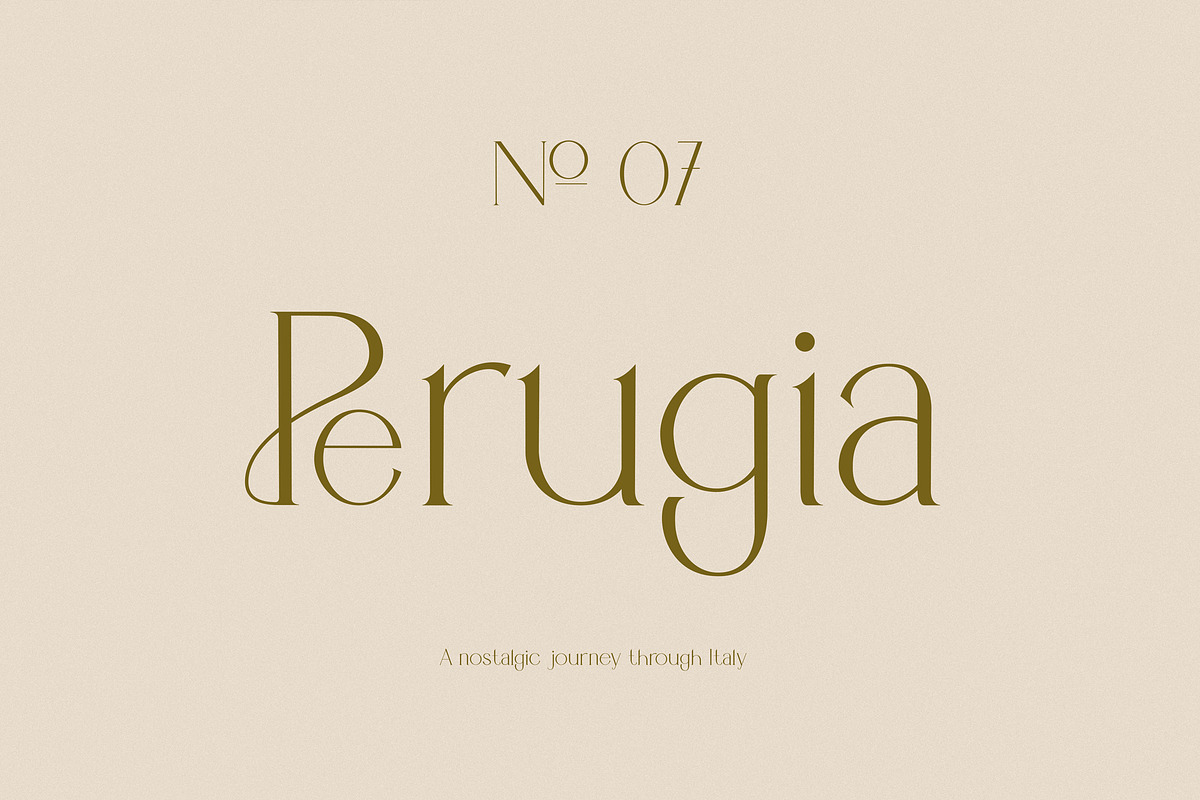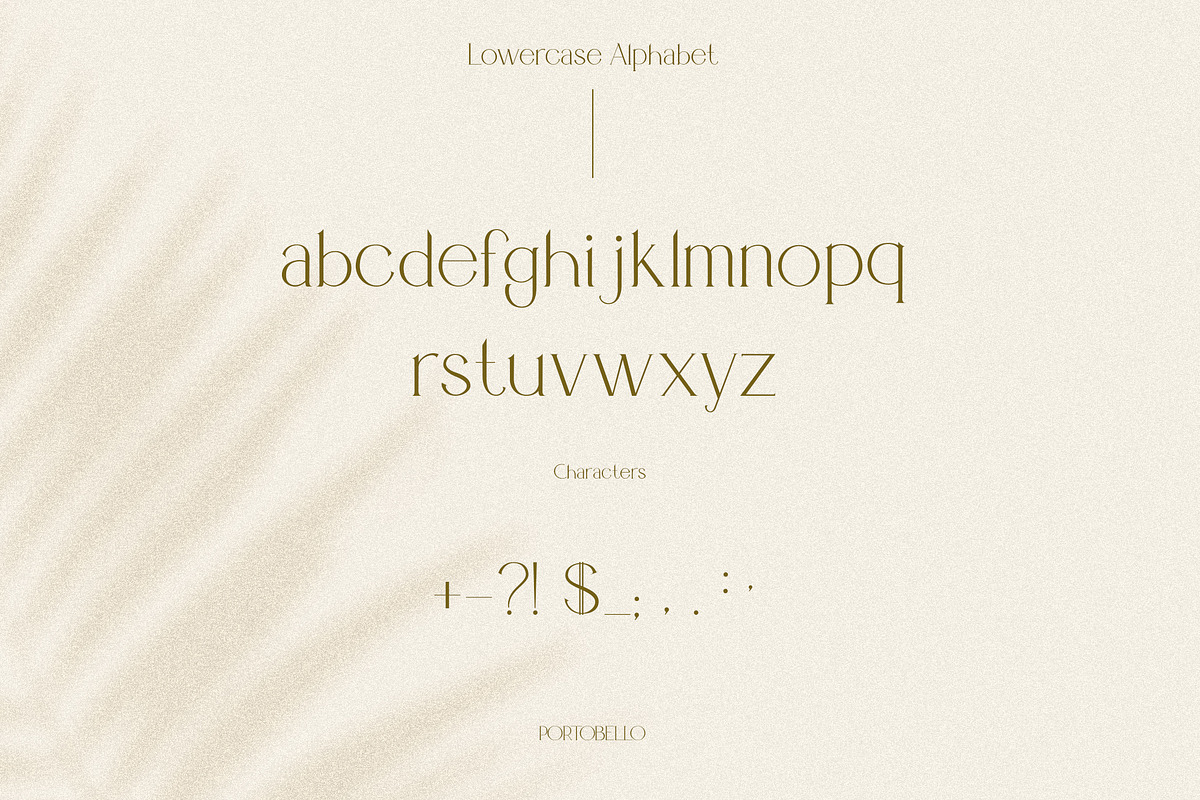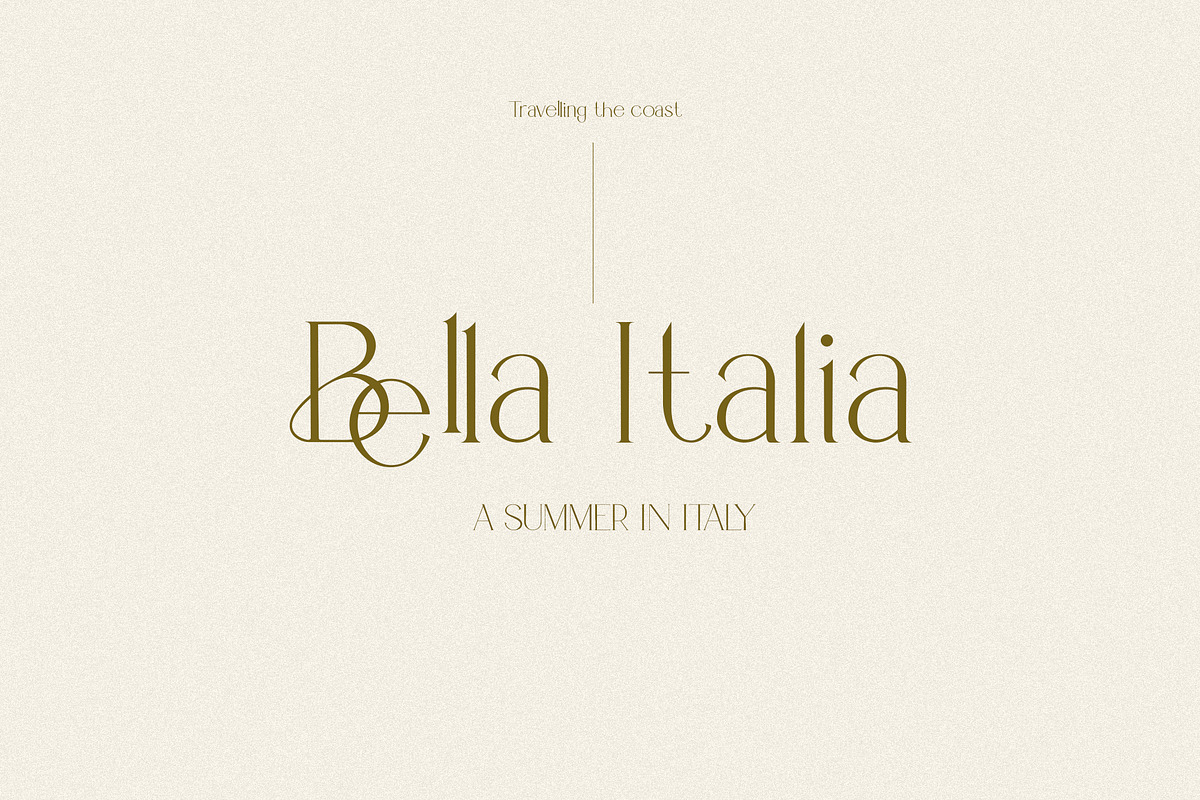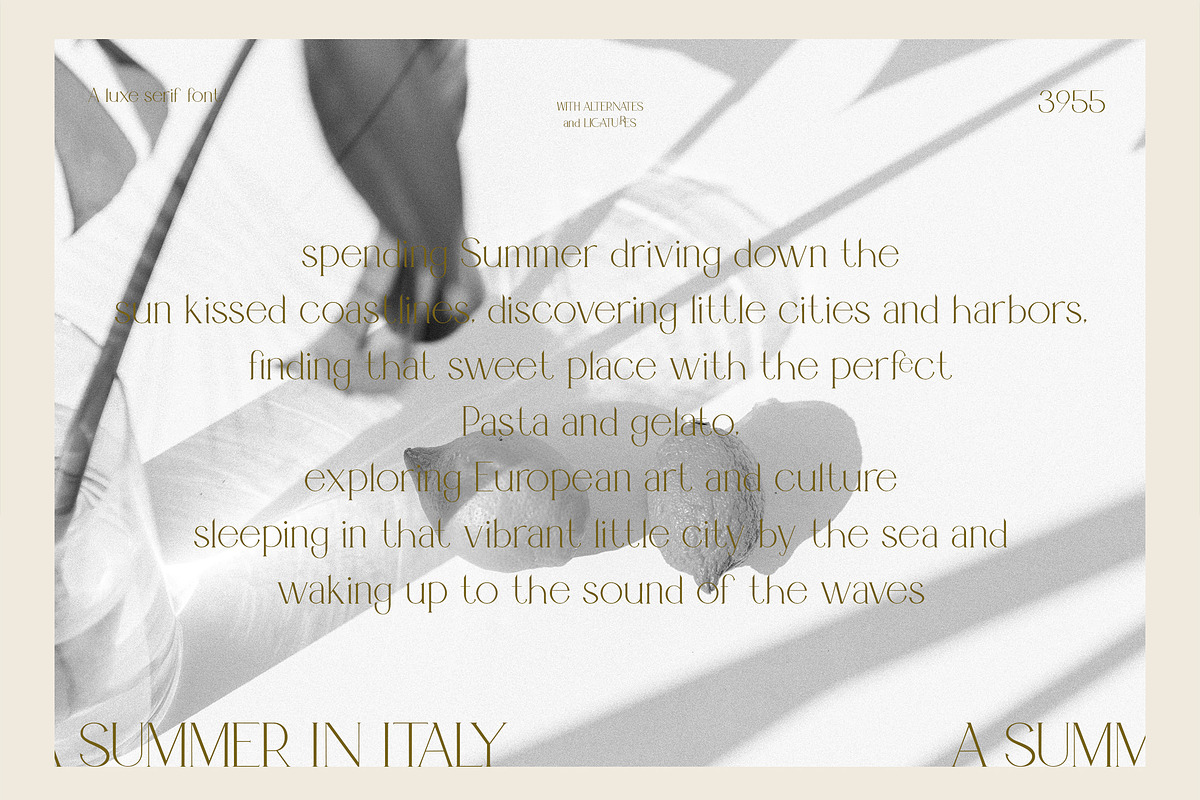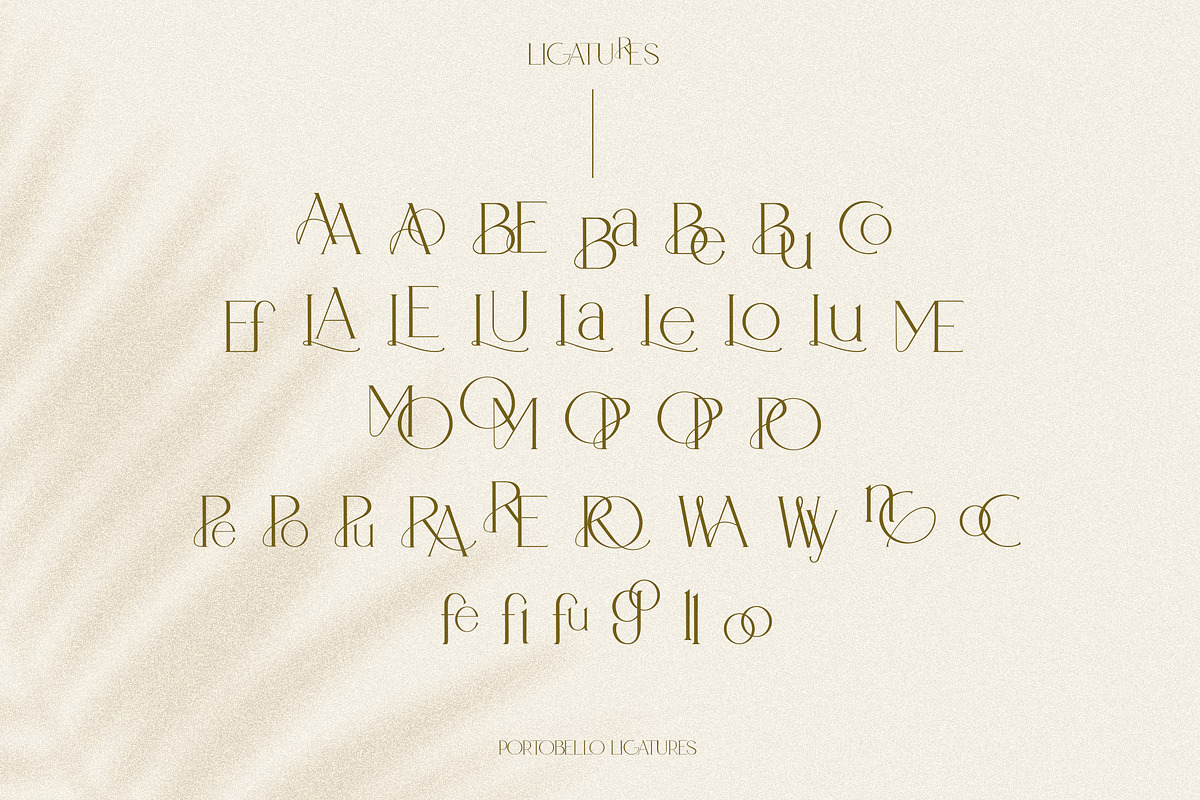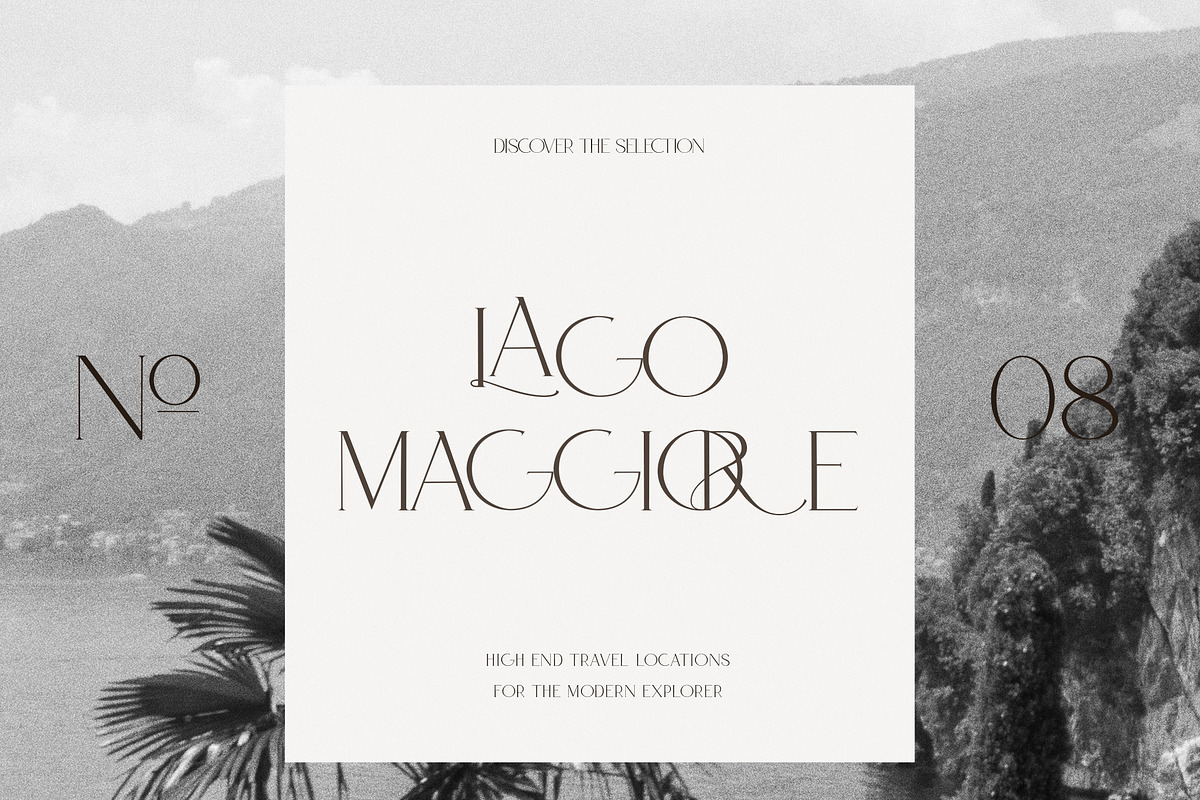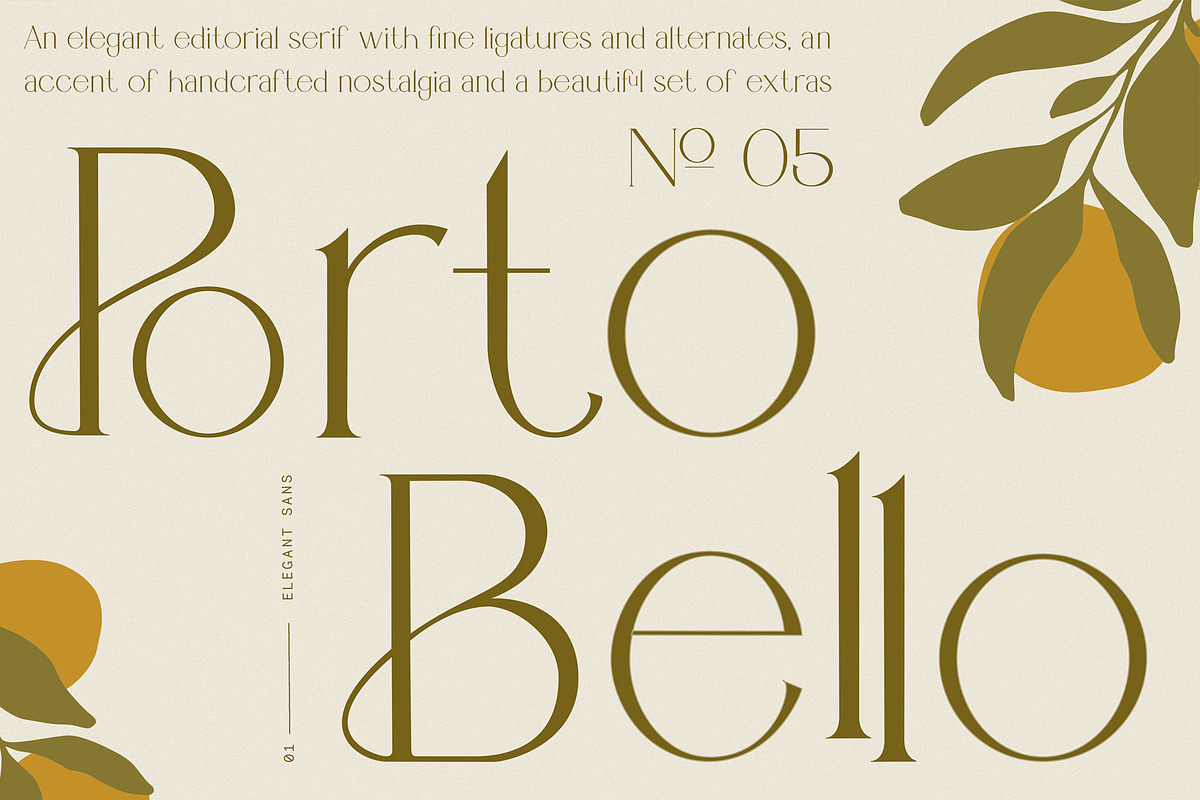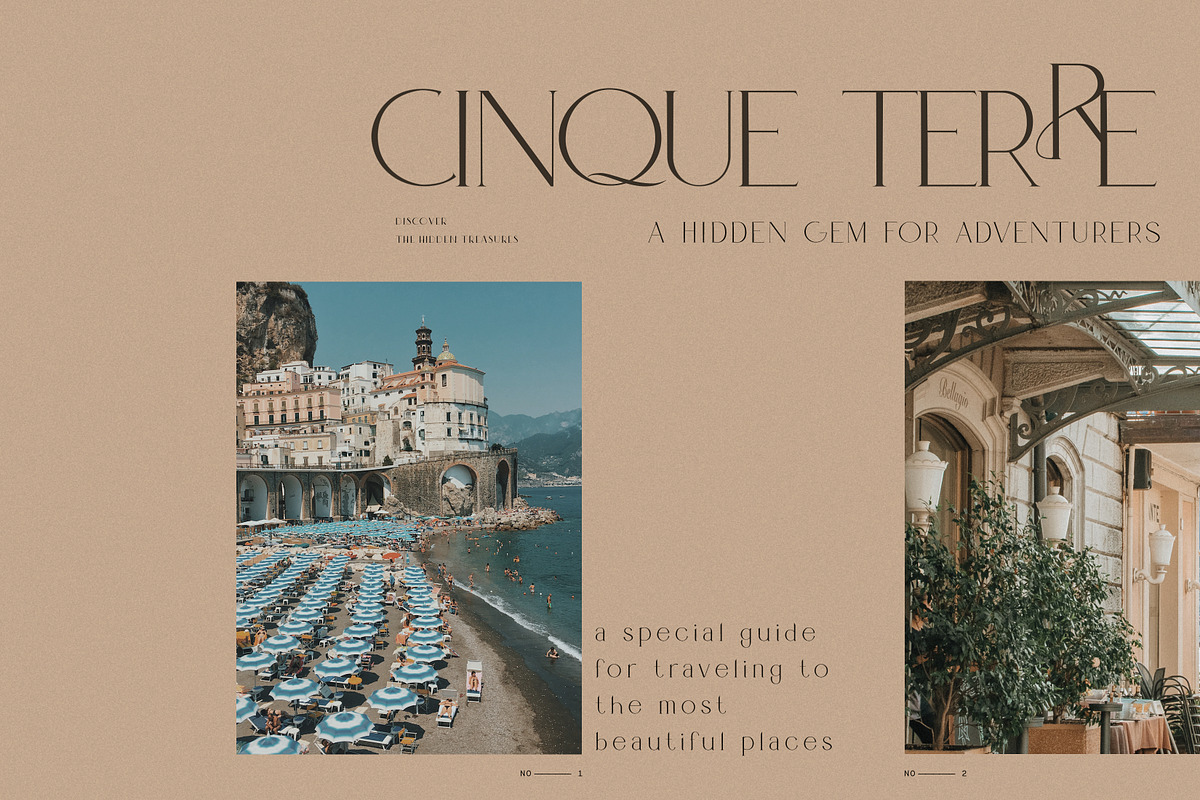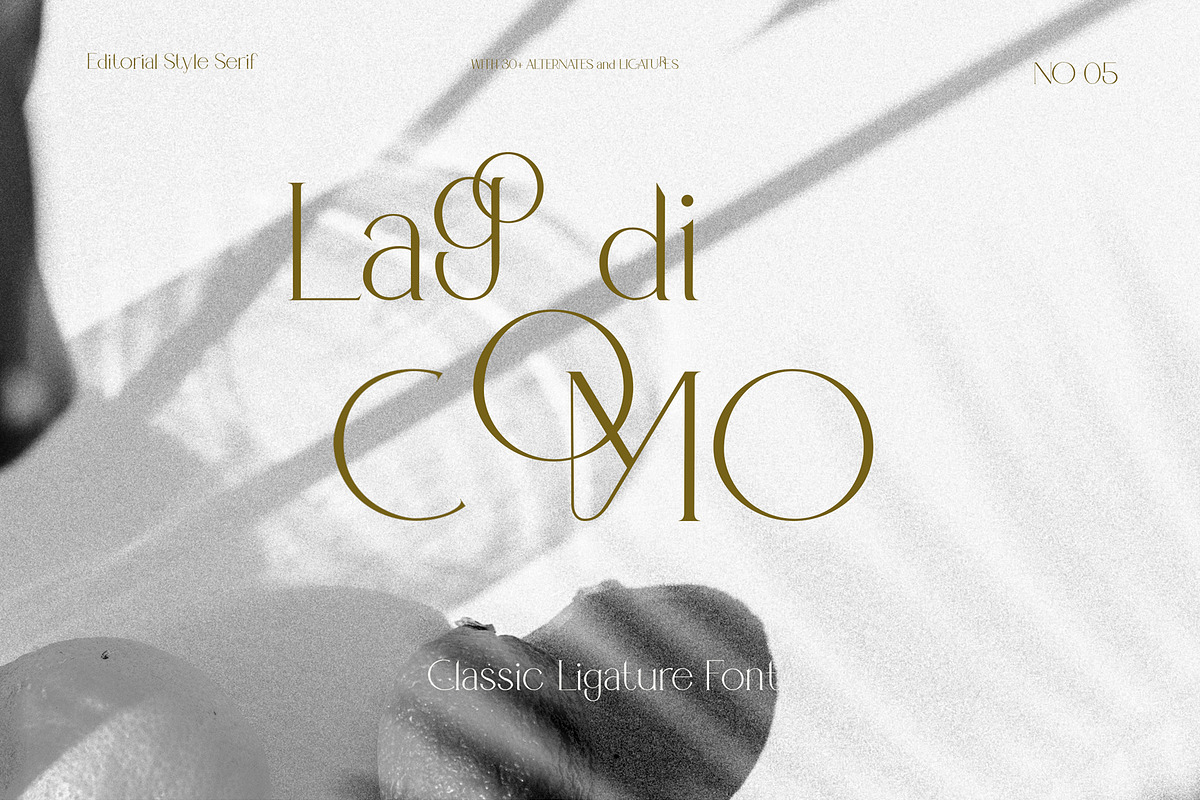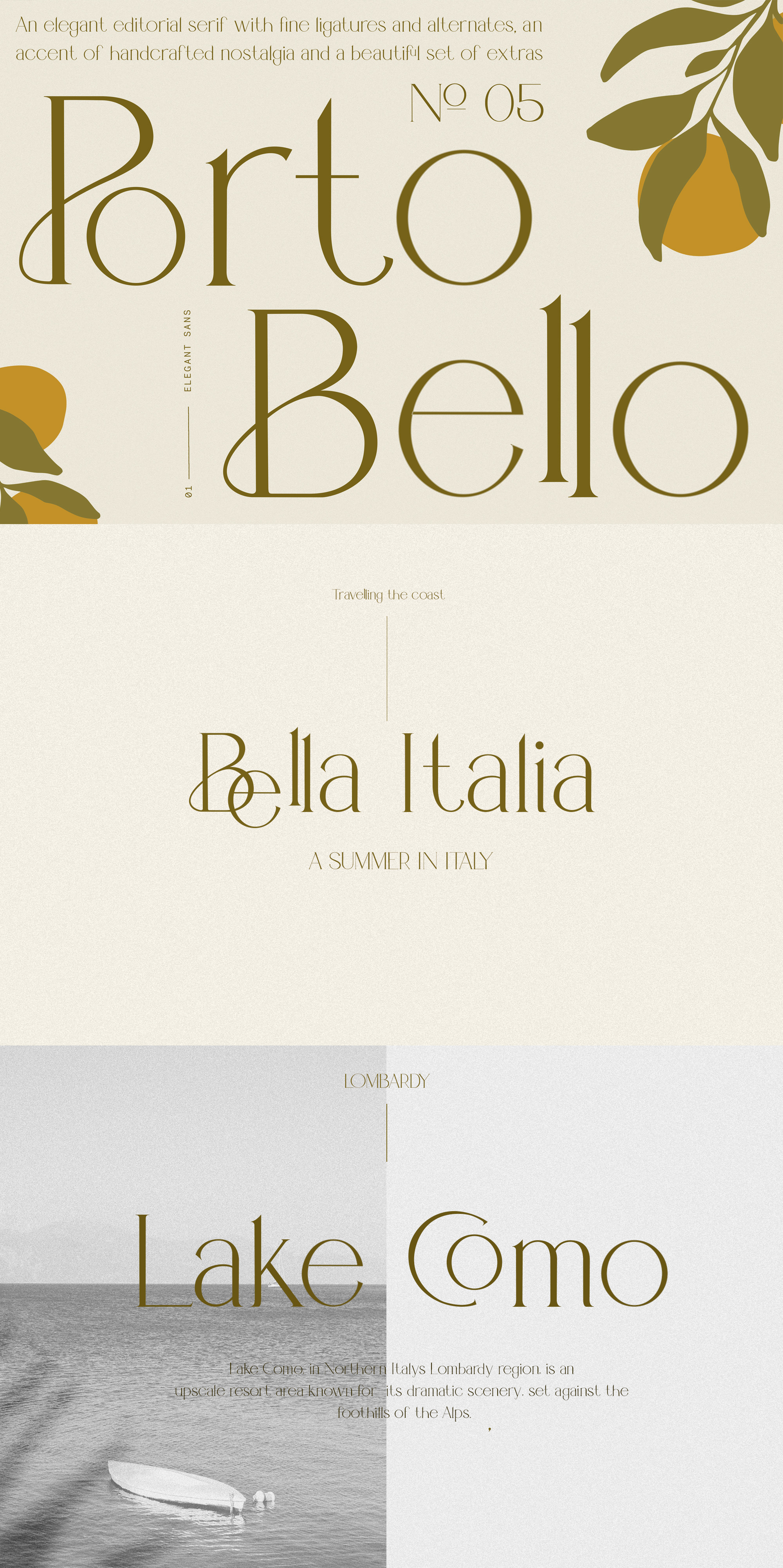
Portobello Display Ligature Font
Welcome Portobello - A classic ligature serif font with that extra touch of elegance. This sophisticated editorial font elevates your work through it's clean and classic visuals as well as swoon-worthy ligatures that instantly enhance your designs.
Italian nostalgia, timeless elegance and effortlessness have influenced the sleek letters, stunning alternates and simplistic lines that find it's finishing touches through a subtly handcrafted appearance.
The standard upper-and lowercase alphabet create an elegant and effortlessly sophisticated look, while alternates and ligatures add extravagance within seconds and add a whole new style to the font.
Indulge in classy elegance and create elegant designs with this eye-catching font :)